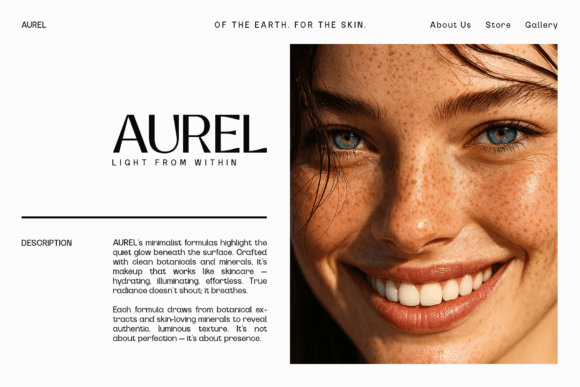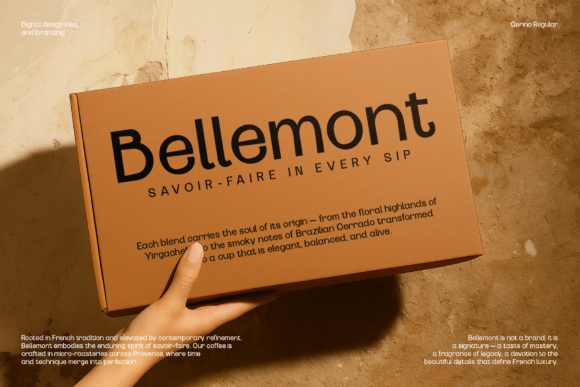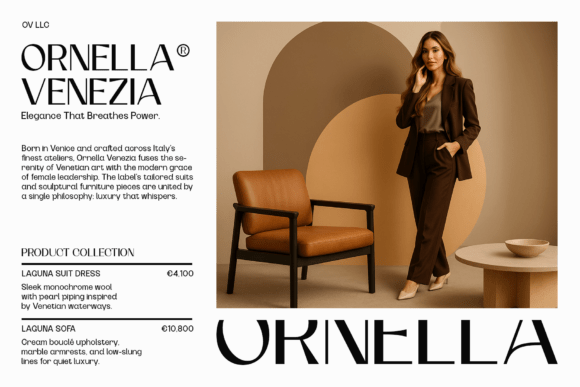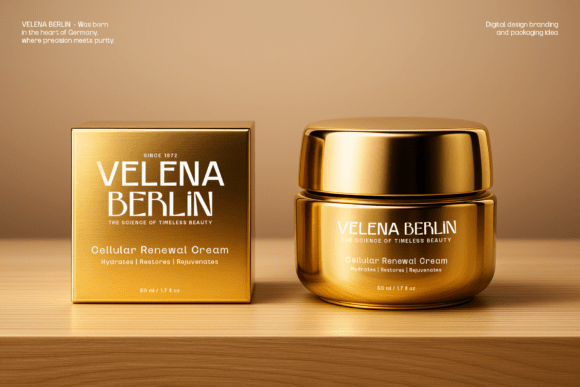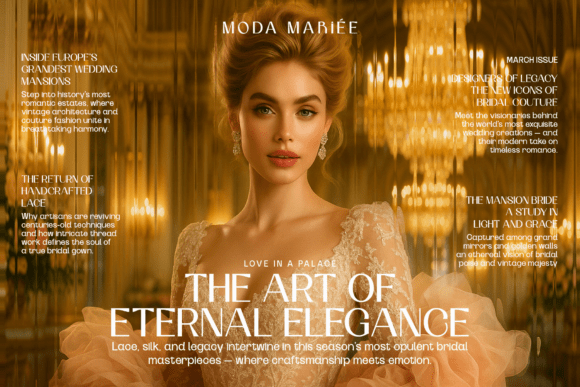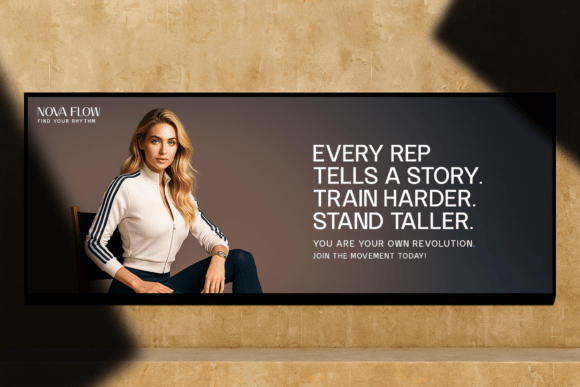
Meet Gerino & Gerino Didas: The Ultimate Sans-Serif Typefaces for Modern Design
In the world of typography, few typefaces manage to strike a balance between clarity, character, and creative expression. However, Gerino and Gerino Didas, two contemporary sans-serif typefaces, have successfully achieved this feat. Designed specifically for modern brands and design studios, this dynamic duo brings warmth to geometry and personality to precision, making them the perfect addition to any design project.
Gerino: The Playful and Confident Sans-Serif
Gerino is a modern yet playful typeface that exudes confidence with subtle quirks that make every word feel alive. Its clean structure and friendly rhythm make it perfect for creating standout logos, lifestyle brands, packaging, and editorial design. With its unique blend of geometric precision and humanistic touch, Gerino is sure to capture the attention of designers and crafters looking for a typeface that can add a touch of personality to their work.
Gerino Didas: The Sophisticated and Balanced Sans-Serif
Gerino Didas, on the other hand, refines the classic high-contrast style into a sleek sans-serif form. This sophisticated and balanced typeface radiates quiet confidence, making it ideal for fashion campaigns, magazines, and luxury branding. With its elegant lines and precise curves, Gerino Didas is the perfect choice for designers seeking a typeface that embodies refinement and poise.
A Harmonious Pair: Gerino and Gerino Didas
Together, Gerino and Gerino Didas form a harmonious pair that feels timeless, expressive, and beautifully versatile. Each family includes a wide range of alternate characters for effortless customization and creative variation, allowing designers to push the boundaries of typography and create unique visual identities. Whether used separately or in tandem, these typefaces are sure to elevate any design project to new heights.
Crafted for Designers Who See Type as Design Itself
Gerino and Gerino Didas are crafted for designers who see type as design itself. With a focus on clarity, character, and creative expression, these typefaces are designed to inspire and empower designers to create stunning visual experiences. By combining warmth, contrast, and personality, Gerino and Gerino Didas offer a fresh perspective on sans-serif typography, one that is both modern and timeless.
Bringing Warmth, Contrast, and Personality to Design
So, what sets Gerino and Gerino Didas apart from other typefaces? The answer lies in their unique blend of warmth, contrast, and personality. With Gerino and Gerino Didas, designers can add a touch of humanity to their designs, creating visual identities that are both memorable and engaging. Whether used in branding, packaging, editorial design, or digital applications, these typefaces are sure to bring a new level of sophistication and style to any project.
Key Features of Gerino and Gerino Didas
- Contemporary sans-serif typefaces designed for modern brands and design studios
- Gerino: playful, confident, and perfect for standout logos, lifestyle brands, packaging, and editorial design
- Gerino Didas: sophisticated, balanced, and ideal for fashion campaigns, magazines, and luxury branding
- Wide range of alternate characters for effortless customization and creative variation
- Crafted for designers who see type as design itself
| Author | valentinovergan |
In conclusion, Gerino and Gerino Didas are two exceptional sans-serif typefaces that offer a unique blend of clarity, character, and creative expression. With their clean structures, friendly rhythms, and sophisticated lines, these typefaces are sure to inspire designers and crafters to create stunning visual experiences. Whether used separately or in tandem, Gerino and Gerino Didas are the perfect addition to any design project, bringing warmth, contrast, and personality to the world of typography.